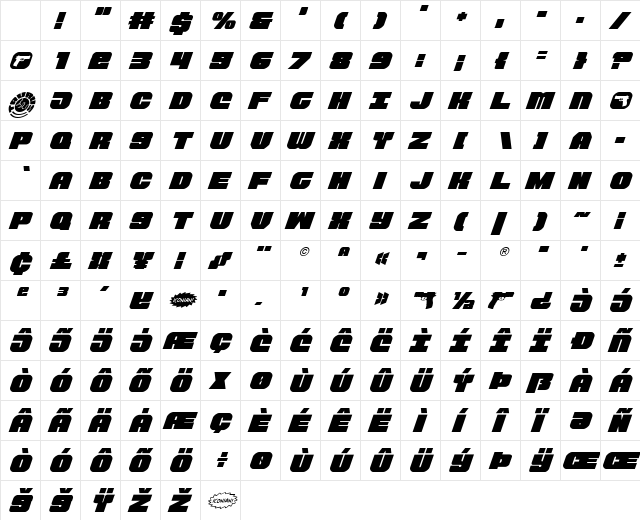
Tauro is a composed and adaptable typeface that performs quietly and consistently across a wide range of design contexts. The slanted form adds forward momentum and visual energy.
Pro Tip: Use Tauro for emphasis, pull quotes, and subheadings where its slanted energy can add rhythm to the layout.